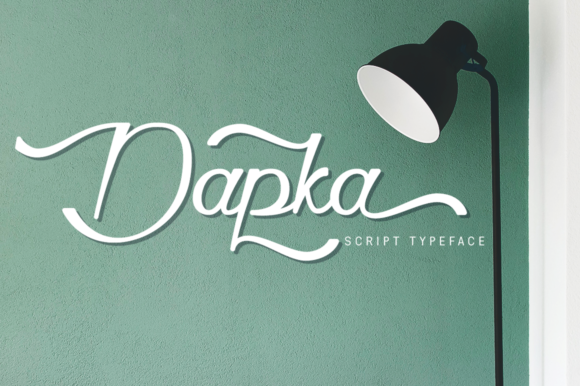
The Perfect Brush Stroke for Your Next Design Project
Have you ever been in the midst of a design project, staring blankly at your screen, trying to find the perfect font to bring your idea to life? We’ve all been there. And then, it hits you – that perfect brush stroke, that elegant flourish, that makes your design pop. For designers, the quest for the ideal font is an ongoing one, and it’s exactly where the Dapka Font comes in.
This unique calligraphic script offers beautiful typographic forms that can elevate any design project, from logos and branding to wedding designs, social media graphics, and more. Whether you’re a seasoned designer or just starting out, the Dapka Font is a valuable addition to your toolkit. Its versatility and charm make it an ideal choice for a wide range of creative projects.
Dapka Font Key Features
- Size and Resolution: The font family includes multiple weights and styles, ranging from 100 to 900 points in size, with a resolution of 1024 x 1024 DPI.
- Unique Characteristics: Dapka Font features a distinctive, hand-drawn style with a mix of geometric and organic elements, giving it a unique and eye-catching appearance.
- Font Family: The Dapka Font family includes a range of weights and styles, including Regular, Bold, Italic, and Bold Italic, allowing for versatility and flexibility in design applications.
- Language Support: Dapka Font supports a wide range of languages, including Latin, Cyrillic, and Greek scripts, making it suitable for global design projects.
- Scalability: Dapka Font is designed to be highly scalable, ensuring that it remains legible and visually appealing at a range of sizes and resolutions.
Dapka Font Review
I recently had the chance to work with the Dapka Font, and I’m excited to share my thoughts on it. Overall, I think it’s a solid addition to any designer’s toolkit, but like any font, it has its strengths and weaknesses.
- The Dapka Font has a unique and quirky personality that can add a lot of character to designs.
- It’s highly legible, even at smaller font sizes, making it a great choice for body text or captions.
- The font is highly customizable, with a wide range of weights and styles to choose from.
- The Dapka Font is also fully supported on a wide range of devices and platforms, making it a great choice for multi-platform designs.
- The Dapka Font may not be the best choice for formal or corporate designs, as its quirky personality may not be suitable for more traditional or conservative styles.
- The font can be a bit overwhelming if used in large quantities, so it’s best to use it in moderation.
The Dapka Font is a fun and versatile addition to any designer’s toolkit. While it may not be the best choice for every project, it’s a great option for designs that need a bit of personality and flair. With its high legibility and customizability, the Dapka Font is definitely worth checking out.
For optimal results, use Dapka Font for titles, headings, and emphasis. It’s particularly effective for creative projects, social media graphics, and presentations.
Experiment with different font sizes, colors, and combinations to achieve a unique visual effect.
Great Vibes is a modern, elegant script font that is ideal for headings, titles, and quotes. It has a unique and stylish look that is perfect for creative projects. Great Vibes is more polished and refined compared to Dapka Font, which has a more casual and rough feel.
Playfair Display is a luxurious, high-end serif font that is perfect for luxury brands, fashion, and high-end design projects. It has a classic and sophisticated look that is more formal compared to Dapka Font. Playfair Display is ideal for use in headings, titles, and body text where a high-end feel is required.
Carolyna Pro is a modern, elegant script font that is ideal for headings, titles, and quotes. It has a unique and stylish look that is perfect for creative projects. Carolyna Pro is similar to Dapka Font in its casual and elegant feel, but has a more refined and polished look.
Ostrich Sans is a modern, sans-serif font that is ideal for body text and headings. It has a clean and simple look that is perfect for minimalist design projects. Ostrich Sans is more straightforward and easy to read compared to Dapka Font, which has a more unique and ornate feel.
Q: Are there any font variations or styles available for Dapka Font?
Yes, Dapka Font includes several font styles, including regular, bold, italic, and bold italic. You can choose the style that best suits your design needs. Additionally, the font is designed to be highly customizable, allowing you to adjust font sizes, line heights, and other parameters to suit your specific requirements.